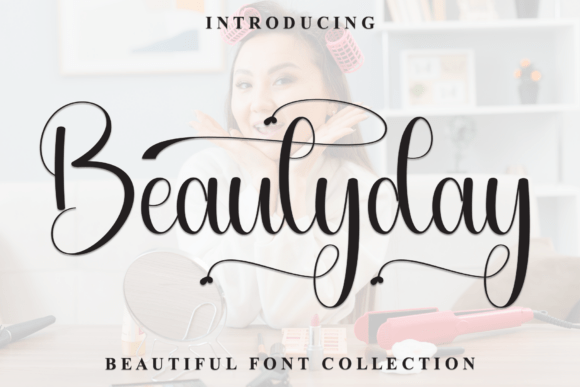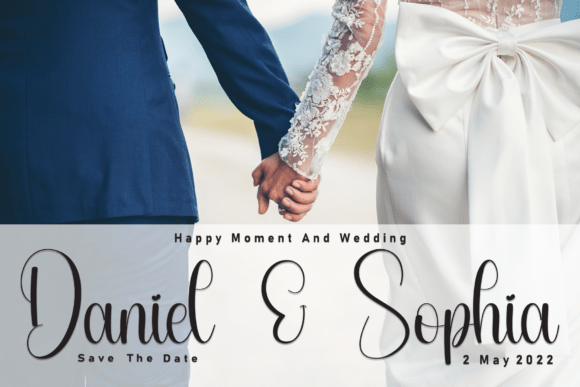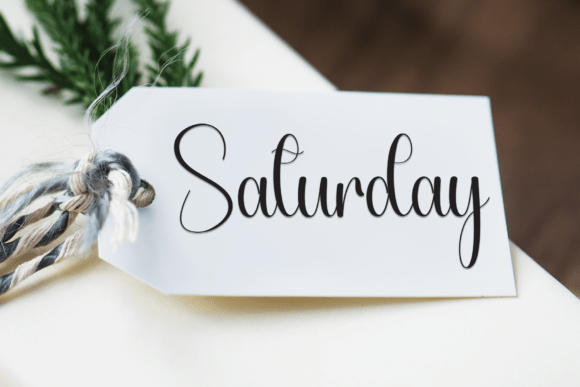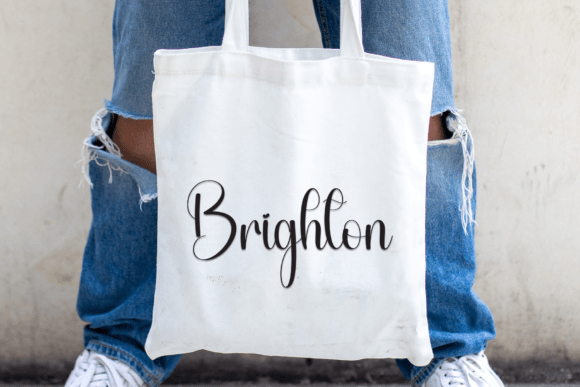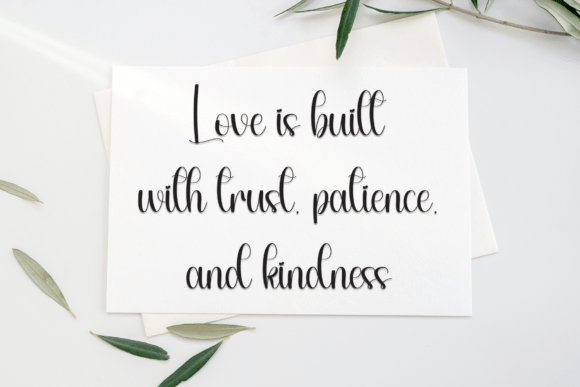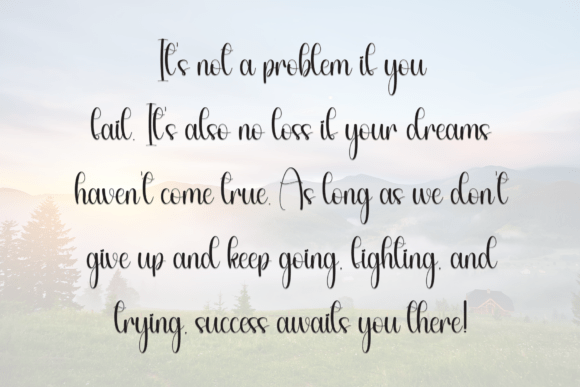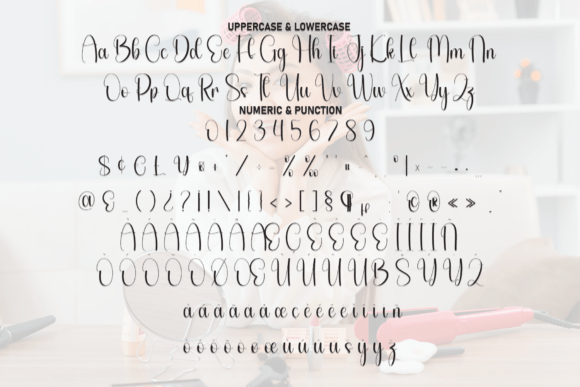
The Perfect Canvas for Your Masterpiece: Introducing Beautyday Font
Have you ever been working on a design project and suddenly, the perfect font pops into your mind, elevating your entire concept to a new level? That’s exactly what happens when you stumble upon the enchanting Beautyday Font – an exquisite symphony of charm and coziness that brings warmth to any creative endeavor.
This beautifully hand-drafted font is designed to radiate joy and vibrancy, making it the perfect companion for any heartfelt project. Whether you’re crafting a wedding invitation, a greeting card, or an artistic piece, Beautyday Font adds a touch of whimsy and elegance to your design, setting it apart from the ordinary. For designers, this font is a valuable treasure, offering a unique expression of jubilation that’s sure to leave a lasting impression.
Beautyday Font Key Features
- Unique Characteristics: This font features a unique blend of modern and vintage elements, with elegant curves and subtle textures that evoke a sense of sophistication and refinement.
- Legibility: Beautyday Font is designed for optimal legibility, with clear and readable letterforms that make it suitable for use in body text, headings, and titles.
- Font Weight: The font is available in regular and bold weights, allowing for a range of styling options and adding depth and visual interest to text.
Designer Review: Beautyday Font
I recently had the chance to work with the Beautyday Font, and I must say it’s a mixed bag. Here’s my honest take.
- The font’s aesthetic is undeniably feminine and playful, making it perfect for beauty, fashion, and lifestyle brands.
- The range of weights and styles available allows for a high degree of customization and flexibility in design.
- The font’s script and decorative elements add a touch of elegance and sophistication, ideal for luxury brands.
- The font’s legibility can suffer at smaller sizes, which may impact readability in certain contexts.
- The font’s complexity may make it challenging to pair with other fonts, requiring careful consideration of typography.
- The font’s design may not be suitable for corporate or professional brands, where a more serious tone is required.
Overall, I think Beautyday Font is a great choice for designers working with beauty, fashion, and lifestyle brands. However, it may not be the best fit for every project or client. With careful consideration of its limitations, this font can add a touch of sophistication and elegance to any design.
Getting the Most Out of Beautyday Font
For best results, use the Beautyday font for titles, headings, and other emphasis text. You can also use it for body text in combination with other fonts for a unique look.
The Beautyday font is ideal for:
- Beauty and wellness branding
- Fashion and lifestyle design
- Wedding and event invitations
Alternatives to “Beautyday Font” for Designers
Great Vibes Font is a beautiful, elegant script font ideal for wedding invitations, greeting cards, and other creative projects that require a touch of sophistication. It has a more refined and delicate look compared to Beautyday Font, making it suitable for more formal occasions.
Comparison: Great Vibes Font has a more refined and delicate look, whereas Beautyday Font has a more playful and whimsical feel.
Pacifico Font is a modern script font that exudes a sense of relaxation and calmness. It’s perfect for beach-themed projects, travel brochures, and other designs that require a laid-back vibe. Pacifico Font has a more relaxed and casual feel compared to Beautyday Font, making it suitable for projects that require a more casual tone.
Comparison: Pacifico Font has a more relaxed and casual feel, whereas Beautyday Font has a more playful and energetic vibe.